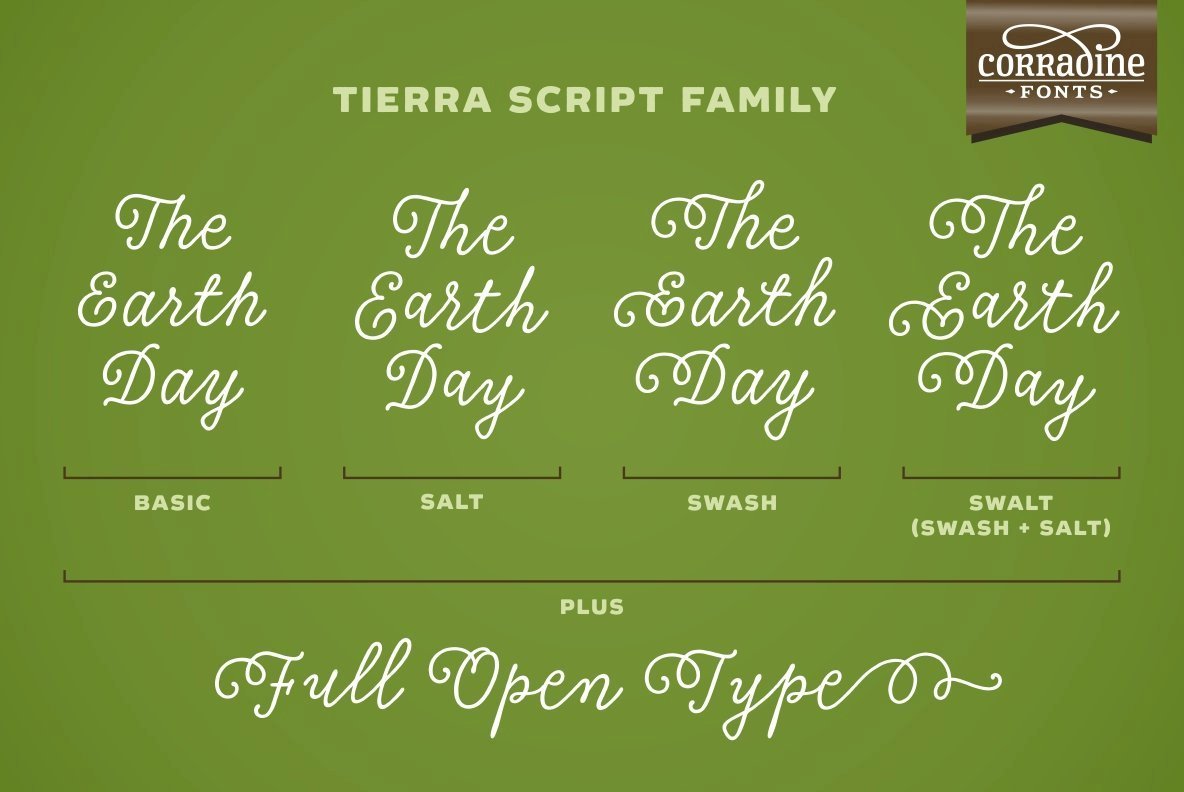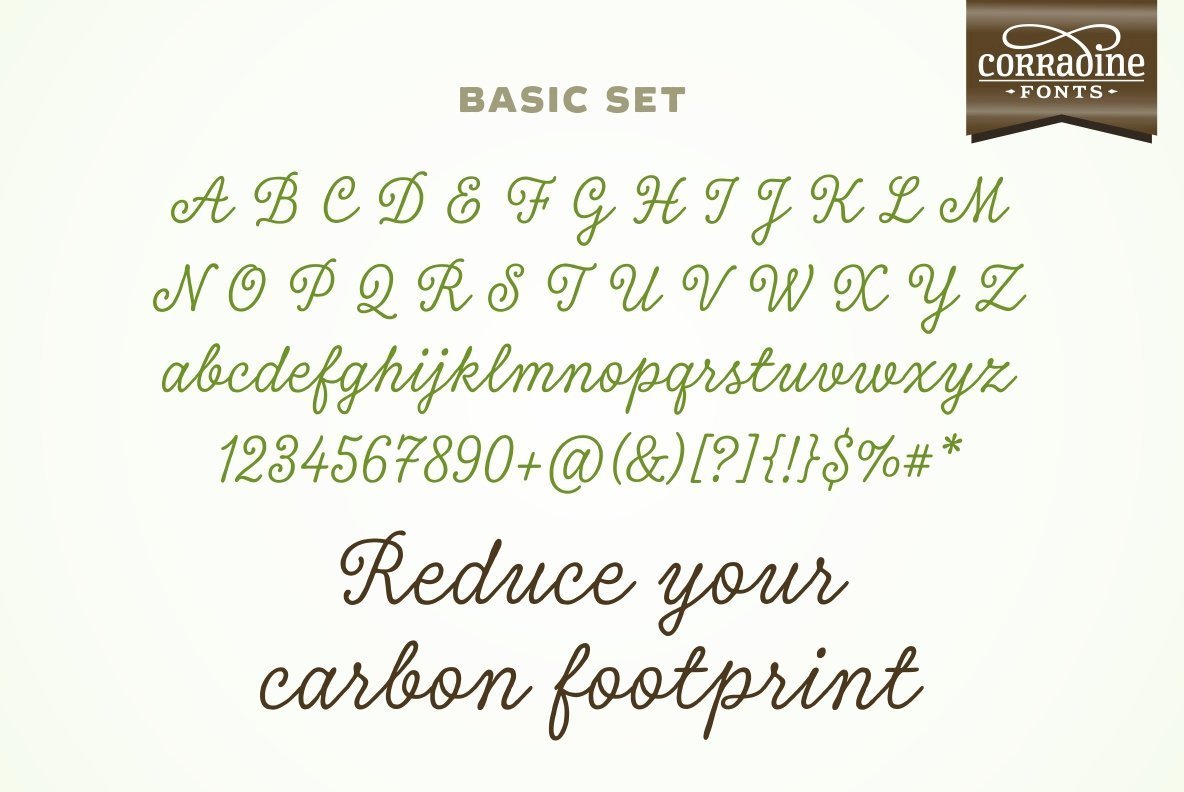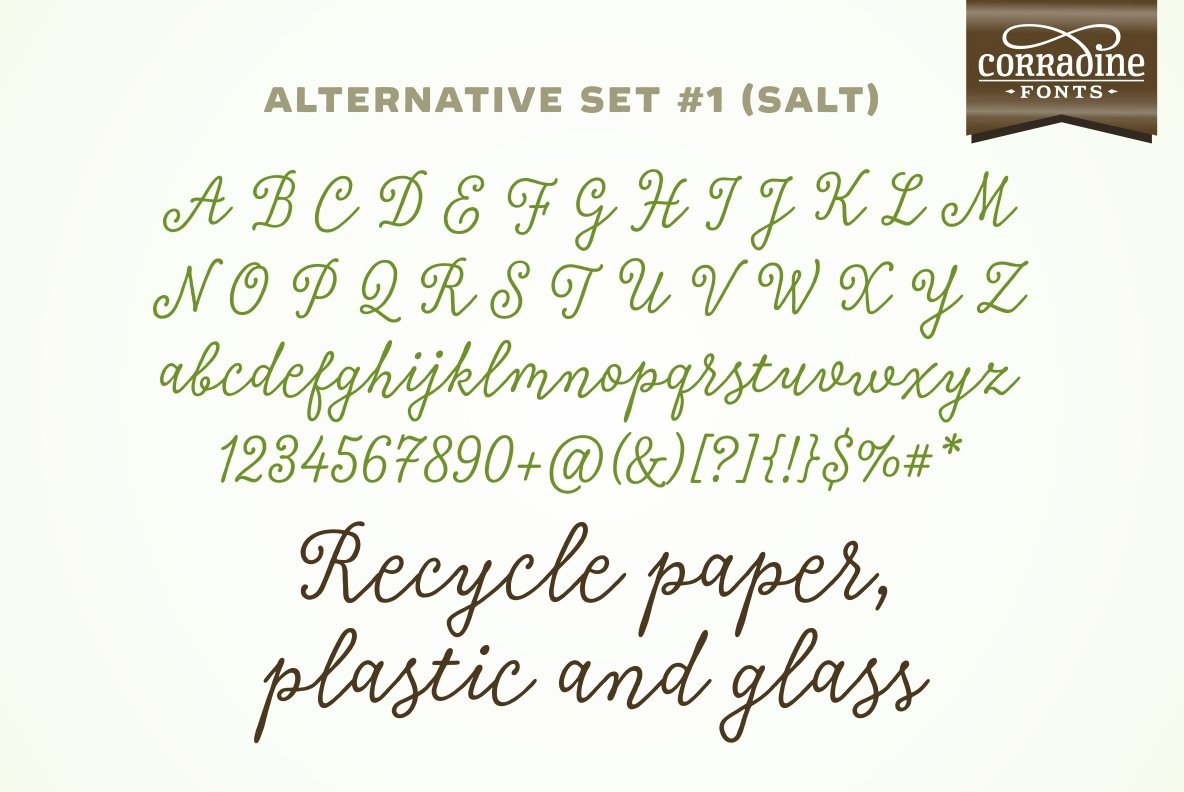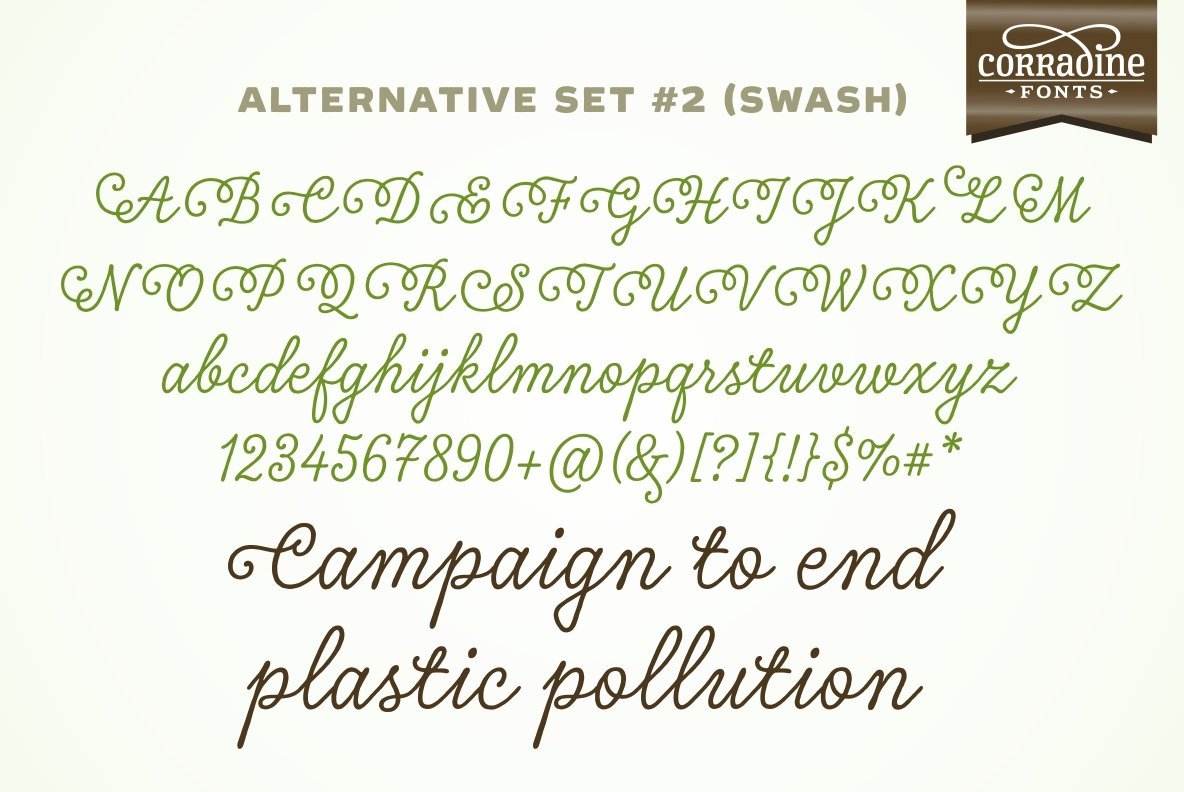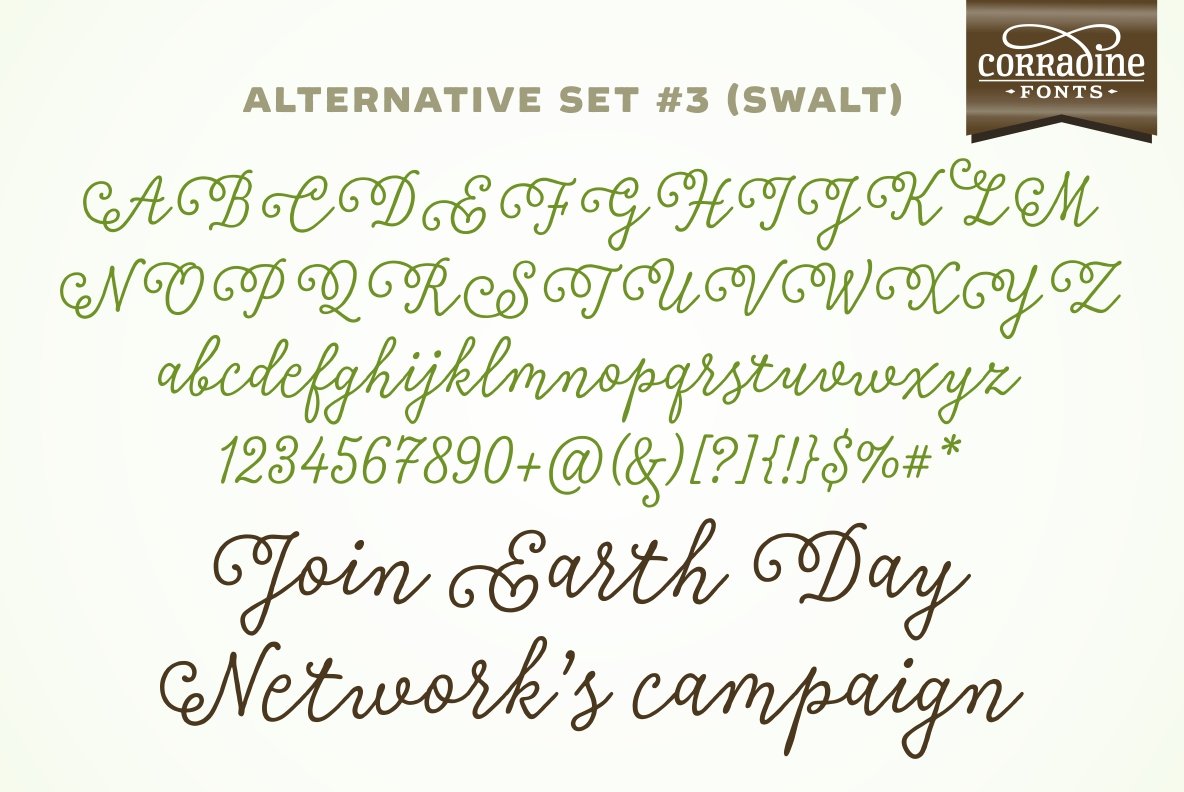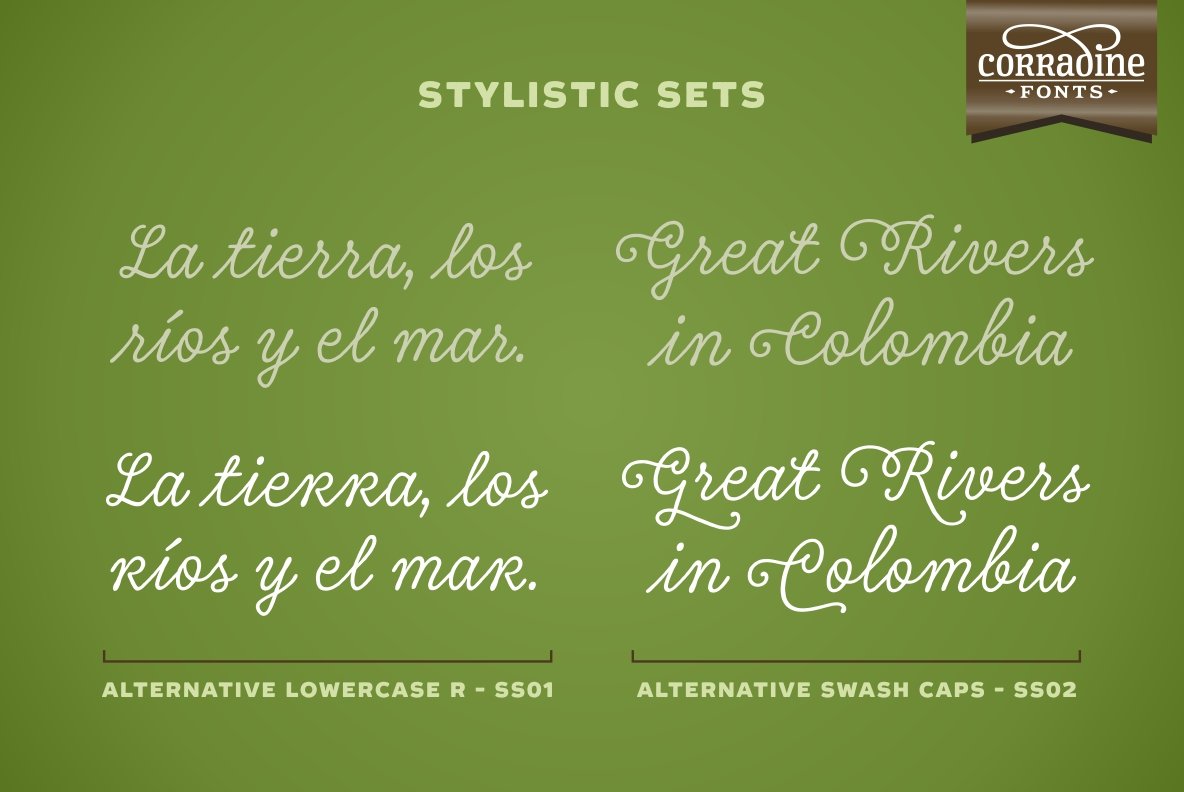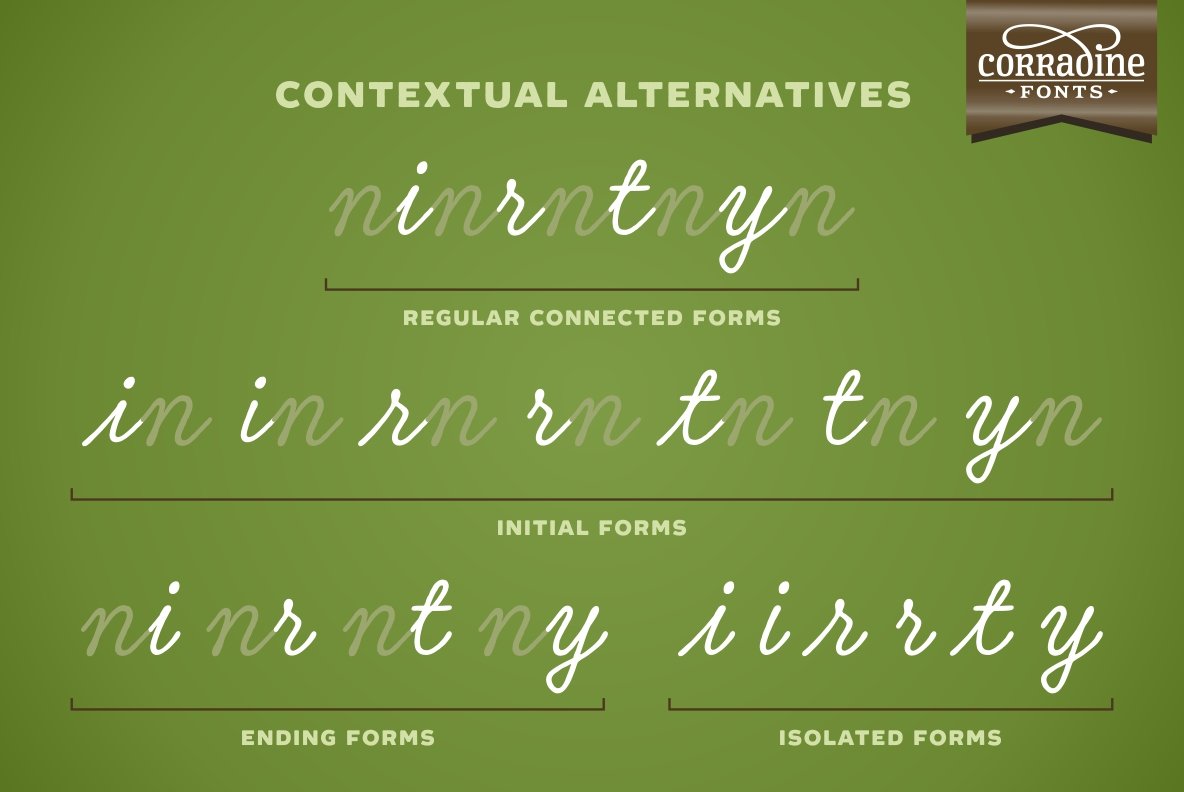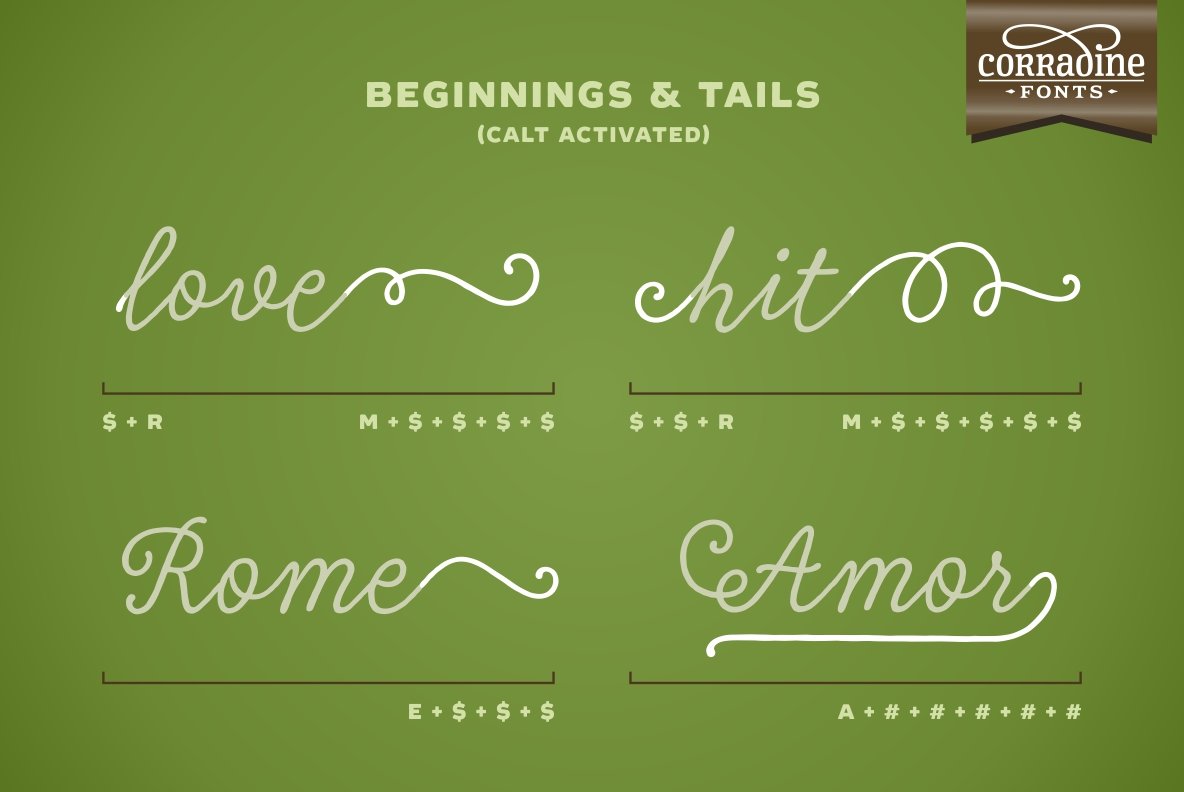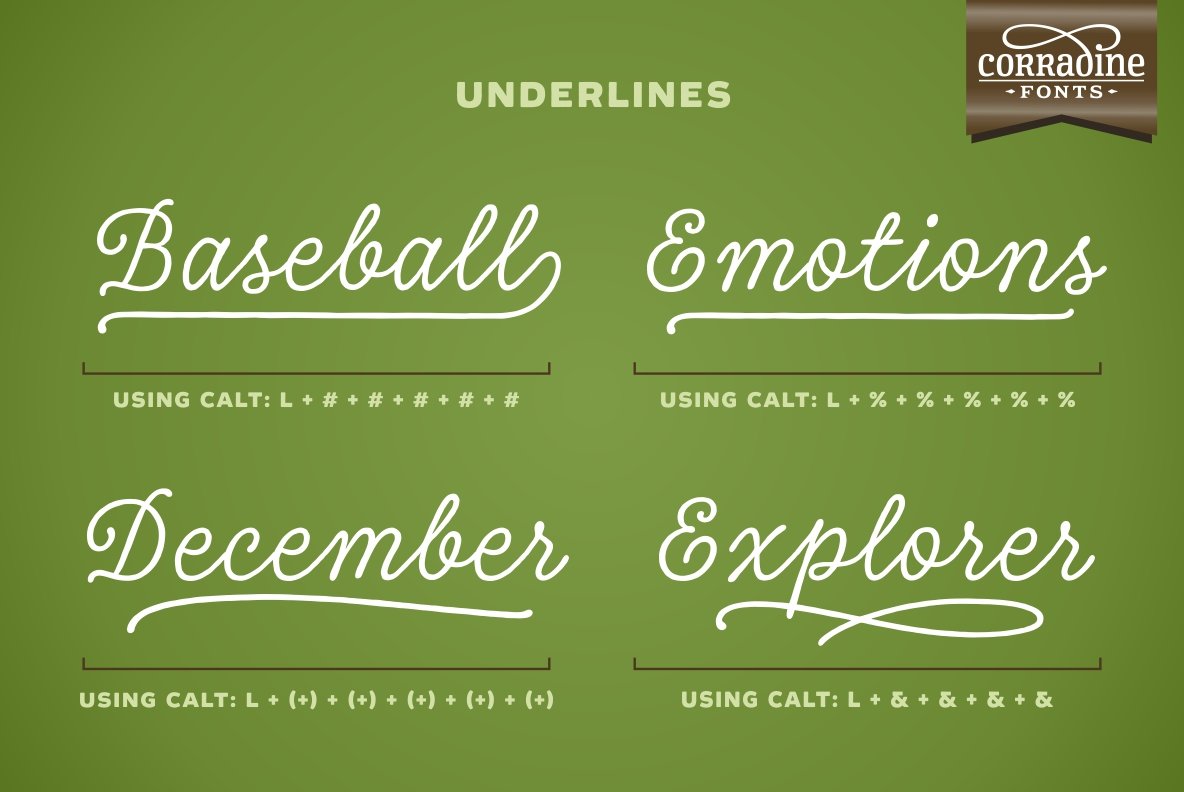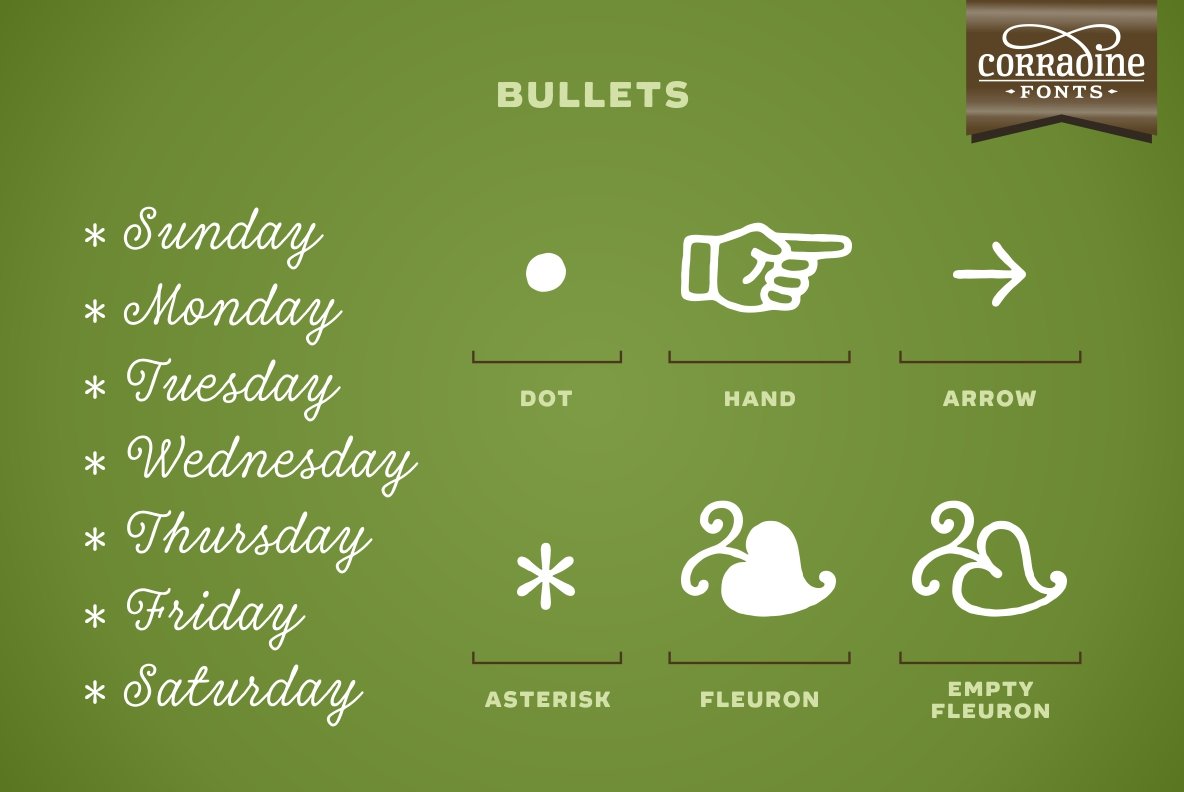
Tierra Script Font
Tierra Script is a connected script typeface with a simple structure and organic contour. Its naivety and fluency makes it easy to read and close to everyone.
The system has two main styles, one more formal than the other, then could be used in a wide diversity of designs applying the appropriate look. Also has other features, like swashes, alternative characters and contextual replacements. All that features are supported by a careful Open Type programmation, then is just needed to play a little with the font to obtain lovely words and phrases. Some features are present in all the fonts but the "Plus" version contains all of them.